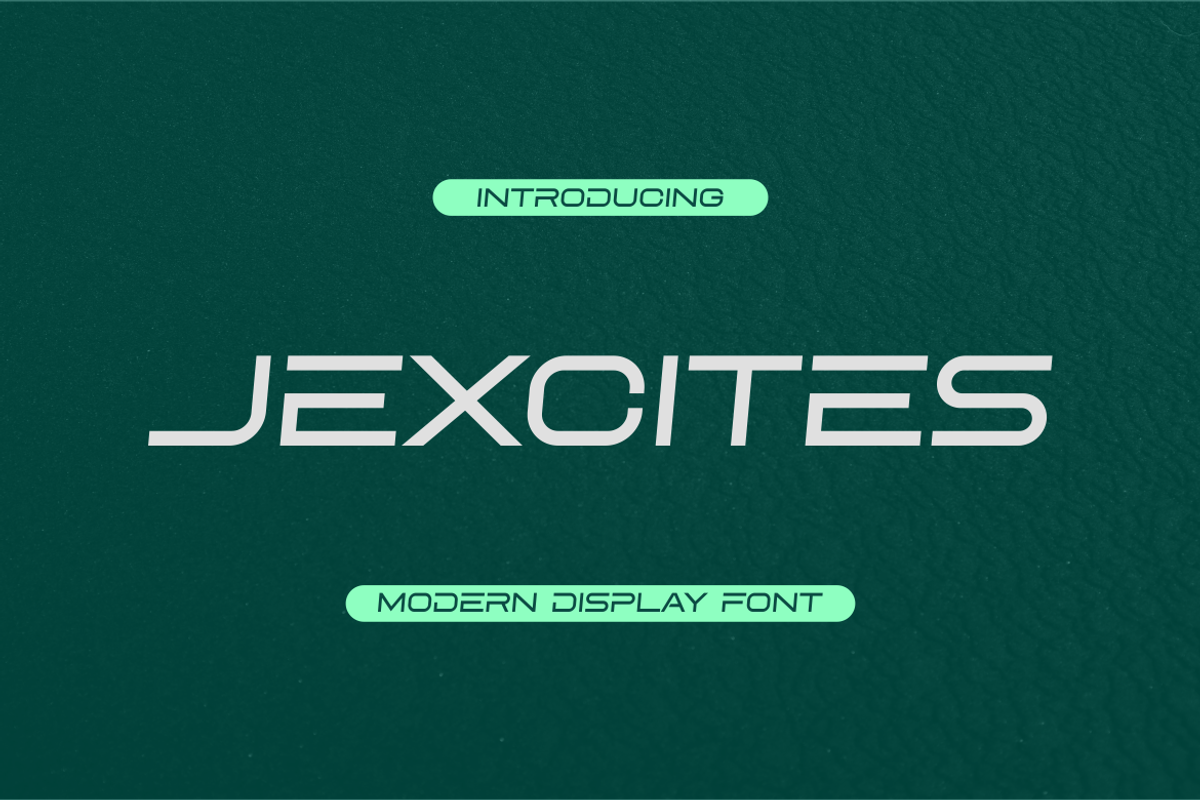
Jexcites Font Free Download is a bold, energetic display typeface with a futuristic and experimental twist. Designed to stand out, this font features sharp angles, unique letter shapes, and a strong geometric rhythm that makes it perfect for tech branding, electronic music posters, sports graphics, and cutting-edge digital designs.
With its striking appearance and high-impact style, Jexcites Font Free Download brings excitement and movement to any project. Whether you're building a modern logo, a dynamic ad campaign, or an edgy website header, this font helps you break through the noise with confidence and style.